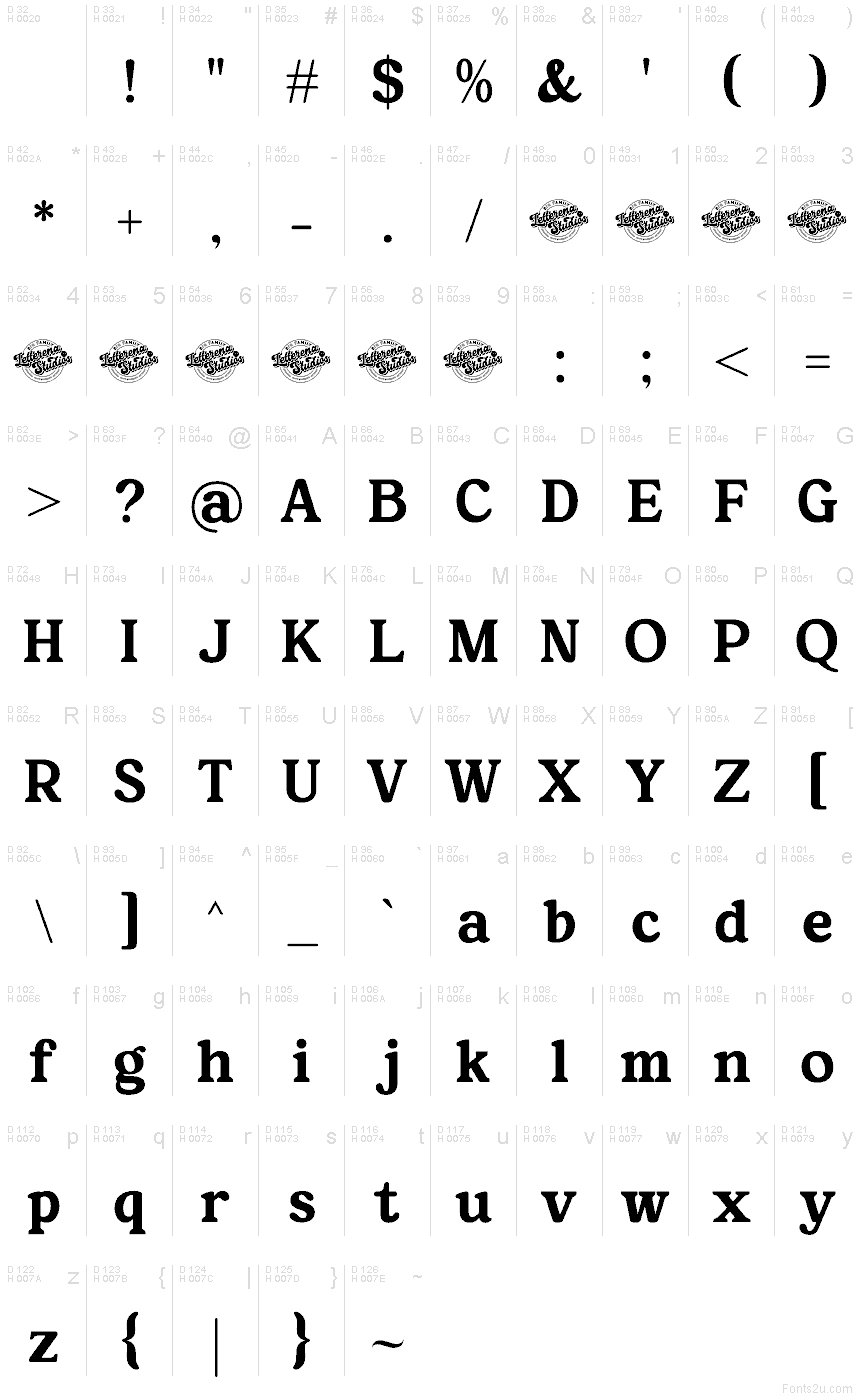
Harbor Nebula DEMO VERSION
Harbor Nebula font by Letterena Studios is a free serif typeface that solves a familiar headache: getting strong, elegant headlines without fussy ornament. Its strokes feel inky and substantial, with sturdy, slightly flared serifs and compact spacing that land with quiet authority. Curves read smooth and confident, giving logos and titles a polished weight while staying clear at a glance.
Using Harbor Nebula, you can anchor boutique branding, book covers, editorial mastheads, posters, packaging, and event invitations with a steady, refined voice. The rhythm is tight and deliberate, so it holds together beautifully in bold sizes. Pair this free font with a crisp grotesk sans for supporting text, and give it a touch of tighter tracking for headlines.